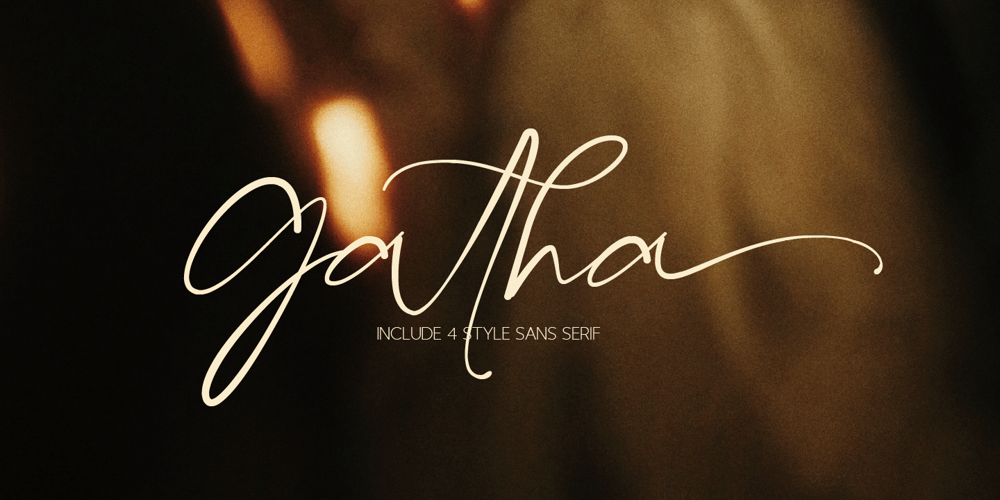
Gatha Font Family was designed by Khair Unnas and published by Khaiuns. Gatha contains 5 styles and family package options. Gatha is a fun font duo that includes signature scripts and elegant, soft sans that grab 4 styles – it’s fit and ready to go together for your next design!Gatha includes a complete set of beautiful upper and lowercase letters, numbers, a wide variety of punctuation marks, ligatures, and super pretty prefixes as well as a final sweep thus providing a realistic handwriting style. These typefaces are versatile and can be used successfully in Magazines, Posters, Branding, Websites, etc.Fonts include multilingual support. Please message me if you’re unsure of any language support.Ligatures • Are also available for several lowercase characters (double-letters which flow more naturally). These are only accessible via software with opentype capability or a glyphs panel, e.g. Photoshop/Illustrator.I hope you have a blast using Gatha.Thanks for use this font ~ Khaiuns X zelowtype